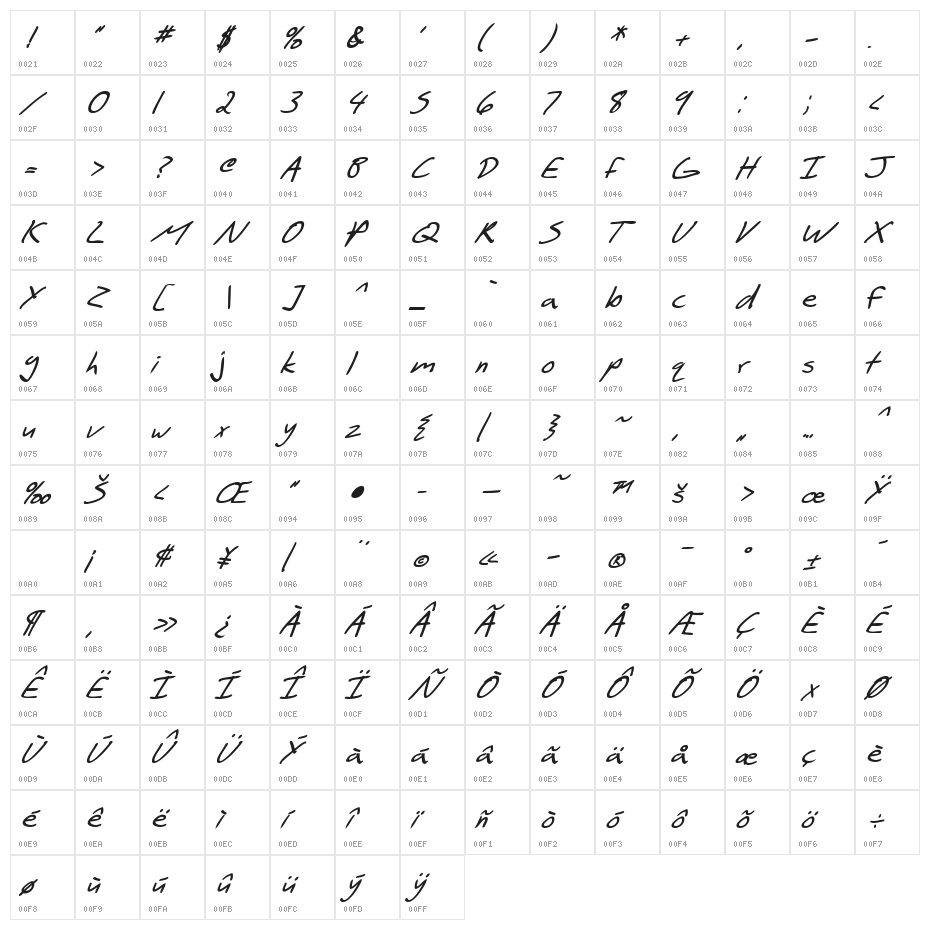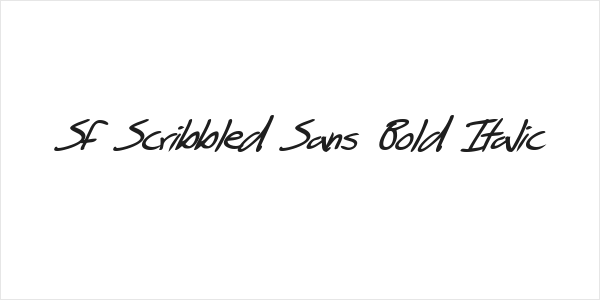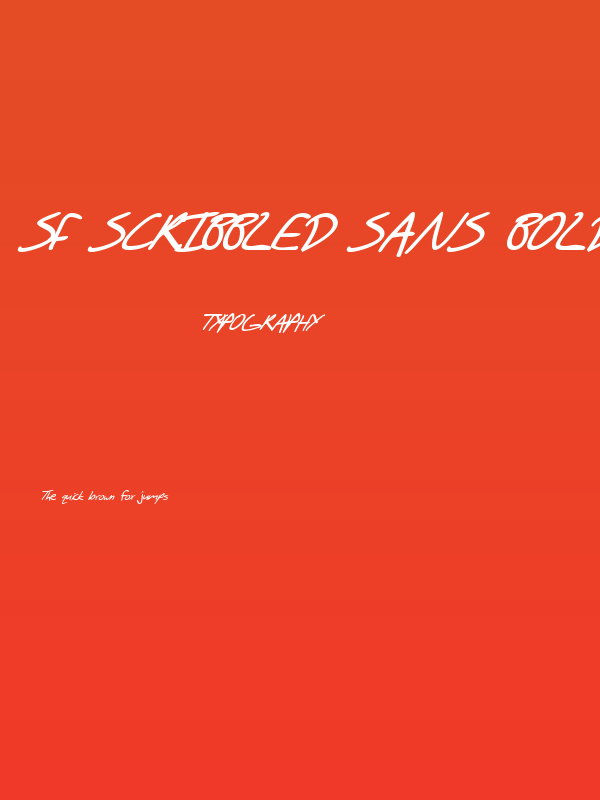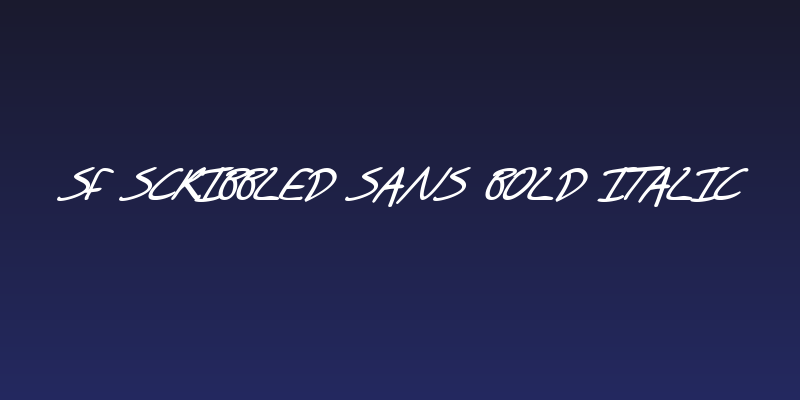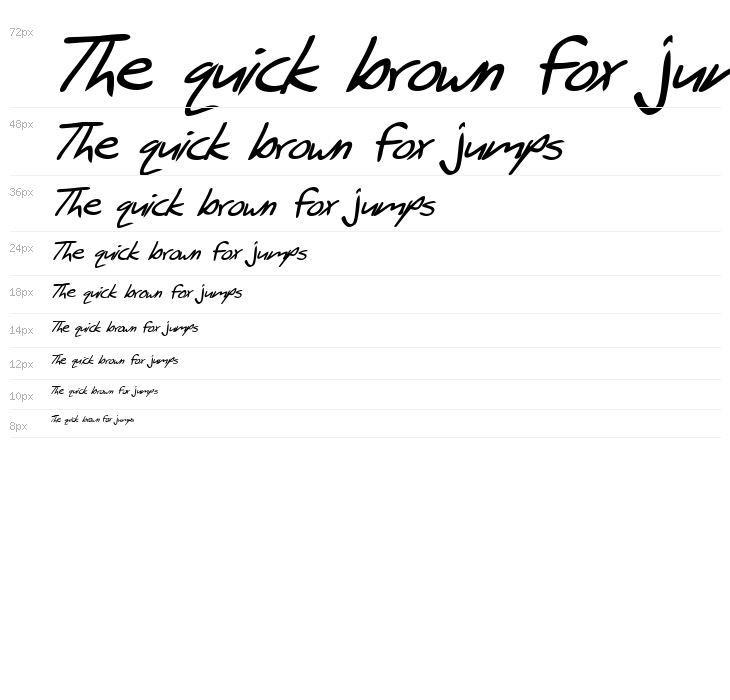
SF Scribbled Sans Bold Italic Font
SF Scribbled Sans Bold Italic Description
This font exudes a playful and dynamic energy, characterized by its handwritten style that mimics a casual, scribbled look. The strokes are bold and italicized, giving it a sense of movement and fluidity. Each character is uniquely crafted, with varying angles and curves that add to its informal charm. The uppercase and lowercase letters maintain a consistent style, while the numerals and special characters are equally expressive. This font is perfect for projects that require a personal touch, such as invitations, greeting cards, or creative branding materials.
| Proposed Projects | Ideal for creative projects like invitations, greeting cards, and branding materials that require a personal touch. |